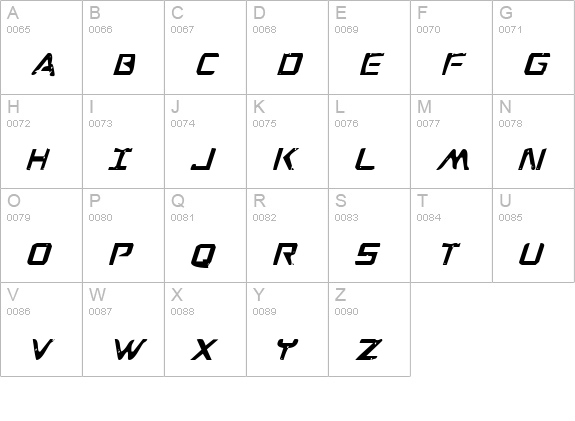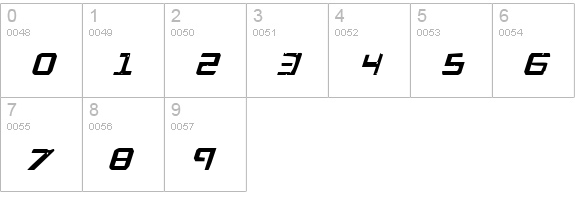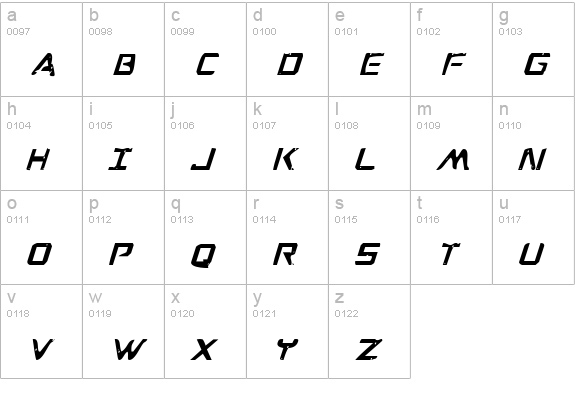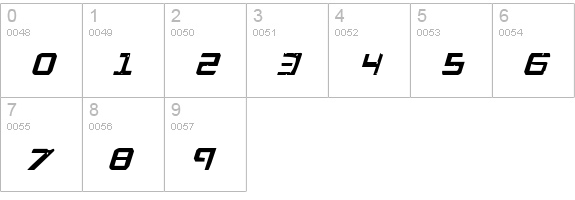
War Eagle Condensed Italic is a distinctive, condensed-width, italic variant in the War typeface family \xE2\x80\x94 well suited to design and typography projects.
War Eagle Condensed Italic is a sleek and modern typeface designed for digital and print projects that require a touch of sophistication and style. Its condensed form makes it ideal for headlines, logos, and other display purposes, while the italicized letters add a dynamic and elegant flair to any design. This font exudes strength and boldness, making it perfect for projects that demand attention and impact. Whether you're designing a poster, website, or branding materials, War Eagle Condensed Italic will help your message stand out and leave a lasting impression on your audience. Best of all, this font is available for free download at FontsMarket.com, making it accessible to designers and creatives of all levels. Don't miss out on the opportunity to add this versatile and eye-catching typeface to your design arsenal. Download War Eagle Condensed Italic today and elevate your projects to new heights!